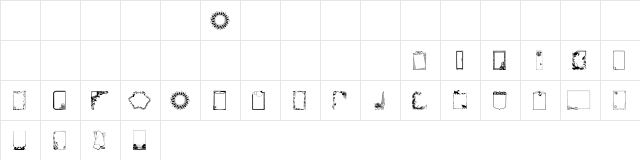
FramesAndBordersIII Regular Font Preview
FramesAndBordersIII Regular
Design Context for FramesAndBordersIII Typeface
FramesAndBordersIII is a composed and adaptable typeface that performs quietly and consistently across a wide range of design contexts.